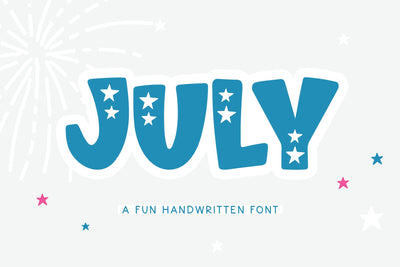
July - Fun Patriotic Font
July is a fun patriotic fun perfect for all of your Fourth of July crafts!
Use this font for stickers, svg designs, shirts, mugs, social media, monograms and more!